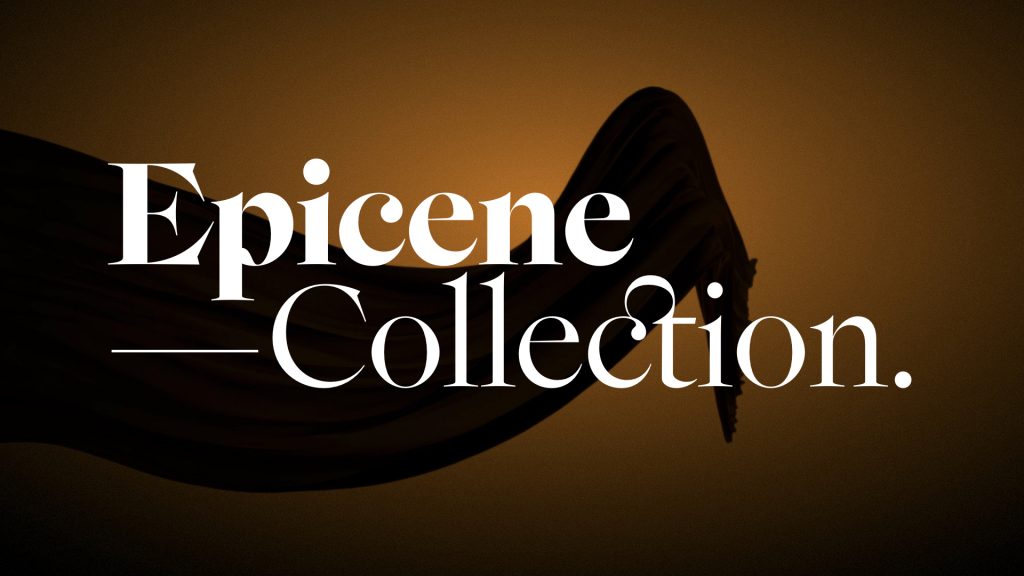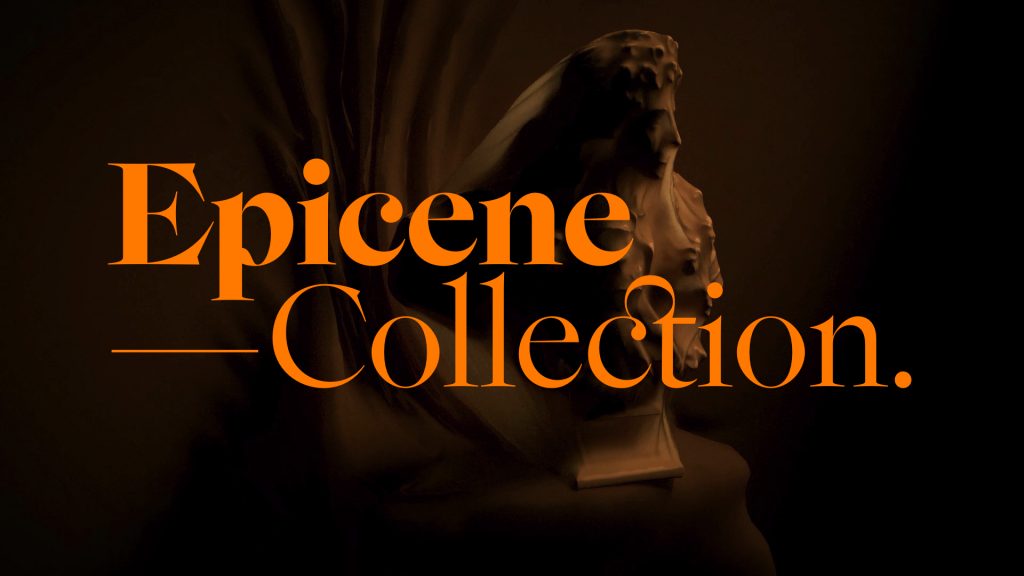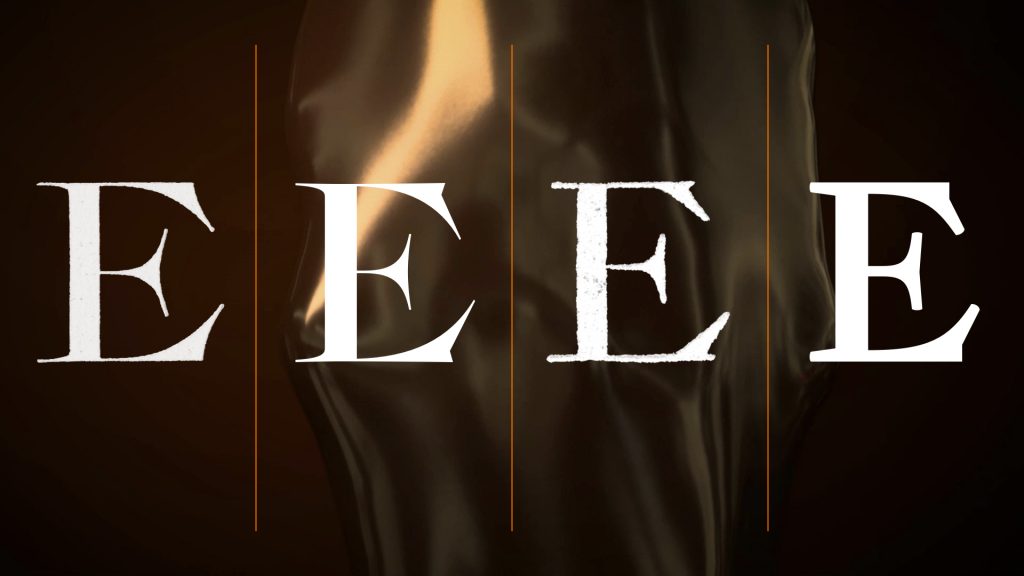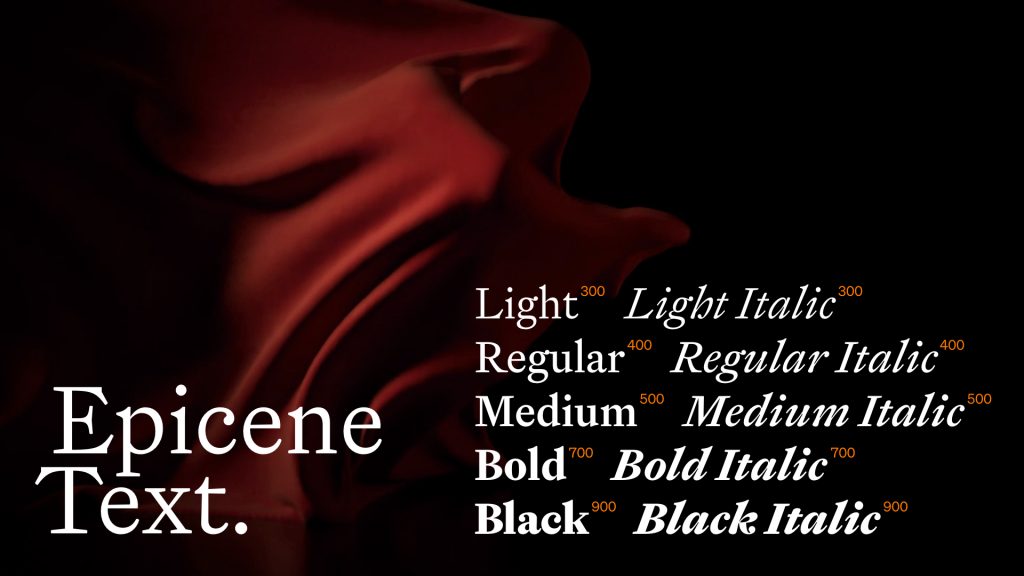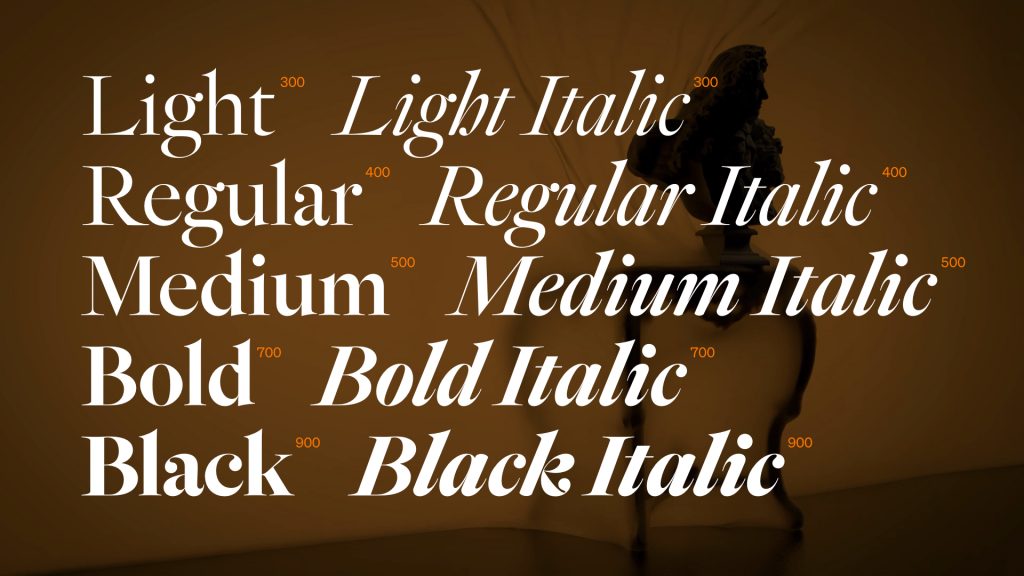
Name: Epicene Text and Epicene Display
Designer: Kris Sowersby
Foundry: Klim Type Foundry
Release Date: September 2021
Back Story: Building out from 18th-century European typographic traditions, Epicene is a new Baroque-style typeface and a reconciliation of the work of rival 18th-century Dutch typographers Jacques-François Rosart and Johann Michael Fleischmann. Fleischmann was known for beautiful text typefaces, while Rosart shone as a designer of display type.
Epicene is not a revival, though—the designer is very clear on this point. He says, “It is an experiment in modernizing Baroque letterforms without muzzling their ornamental idiosyncrasy nor falling into the trap of gender codifications. It’s a firm statement that fonts have no gender. Describing things as ‘masculine’ or ‘feminine’ in design and typography is historically and culturally loaded…Gender shouldn’t be used as a metaphor.” Epicene’s letterforms refute the lazy assumption that codes modern, functional or neutral visual forms as “masculine,” while equating anything ornate or decorative with “feminine” traits.
Why’s it called Epicene? Susan Sontag’s infamous 1964 essay, Notes On “Camp,” says that to be epicene means to lack gender distinction and to have aspects of both or neither. Bull’s-eye.
What are its distinguishing characteristics? Epicene is an expressive, functional type family featuring text and display variants over a generous range of weights. Its scalloped serifs, with sharp elegant terminals inspired by Rosart’s fonts, harmonize with deliberate and focused details echoing the balance between exaggeration, style and function seen in Fleischmann’s work. Sowersby worked for ten years on and off synthesizing the best of both worlds to create Epicene. He built in some gorgeous ligatures too; be sure to check out the Open Type features.
What should I use it for? Mix the text and display cuts for distinction in printed work, and try the display variant to add panache to screen-based projects using other neutral typefaces for legibility. The warmth of the text family brings some humanity to the cold, sharp digital screen environment as well.
What other typefaces do you like to pair it with? Try it with Miller if you’d like to mix in another serif style or the humanist-inspired shapes of Agent Sans for a sans serif partner.
Bonus round: Check out the wonderful, mysterious, and slightly frightening (in the best possible way) video campaign for the font release, created by Kelvin Soh of New Zealand-based creative agency DDMMYY.